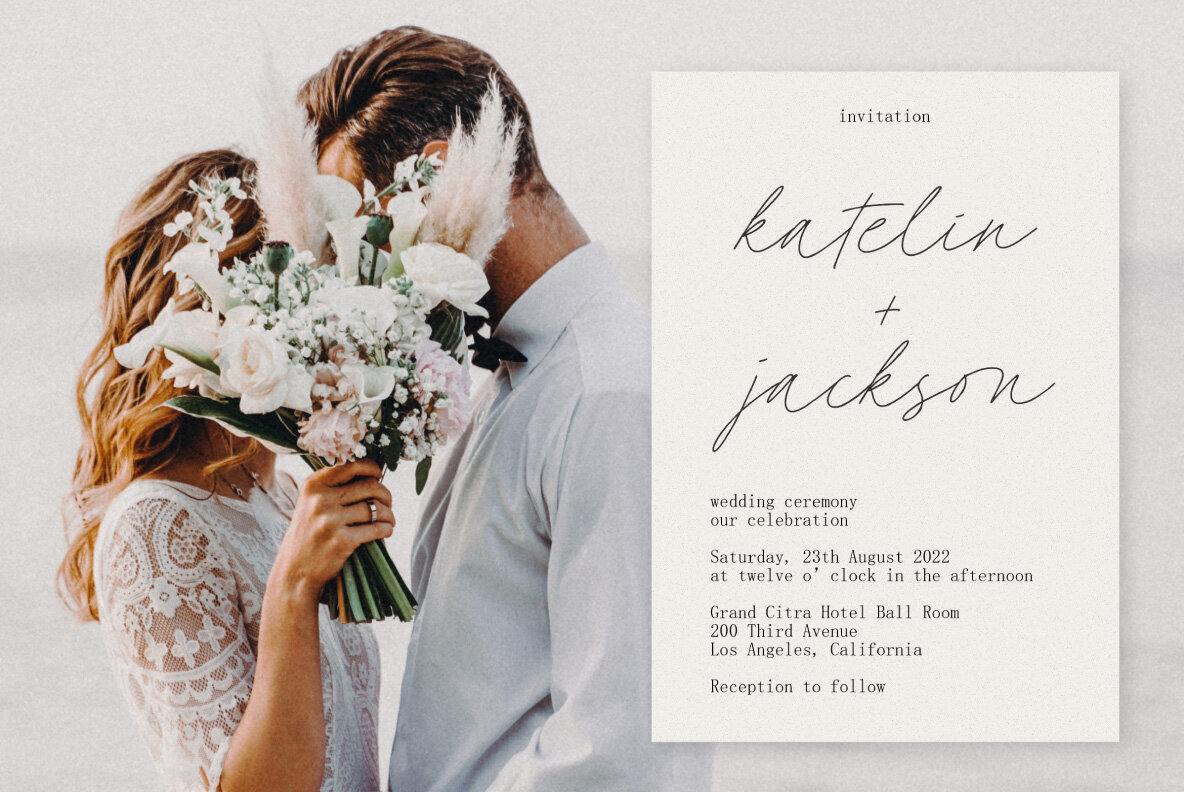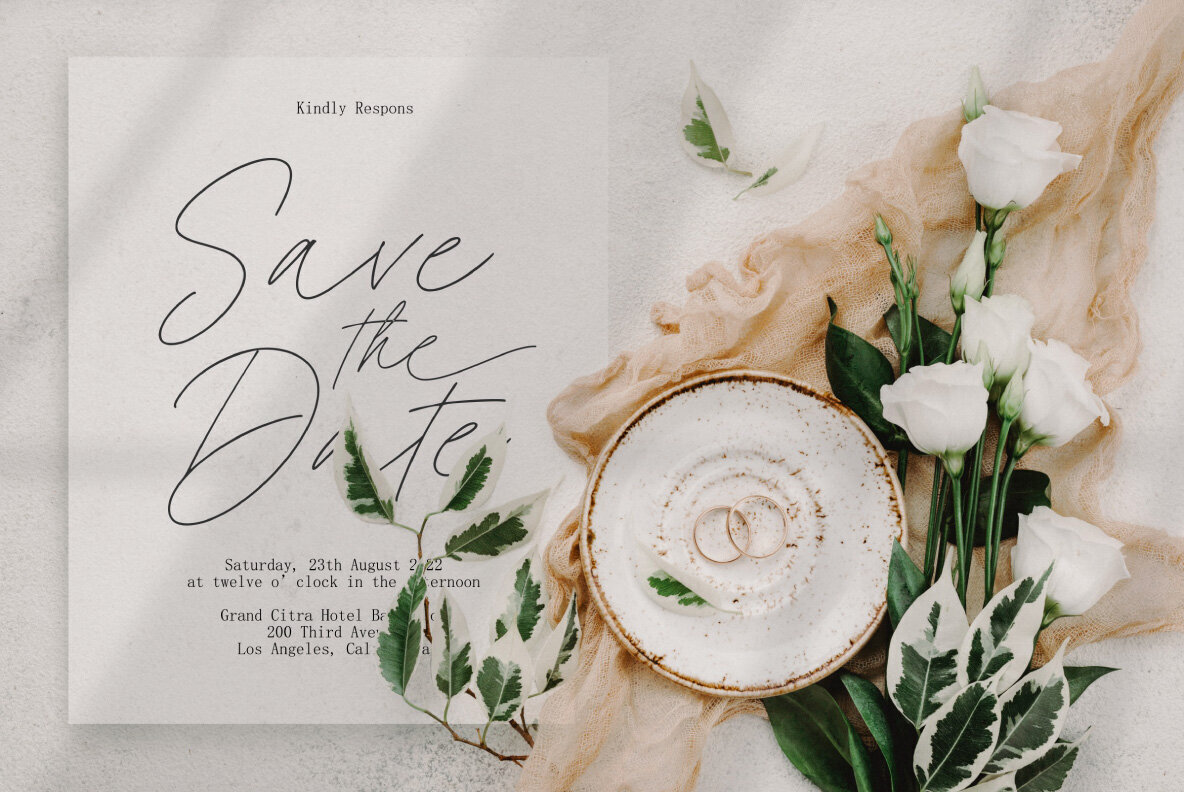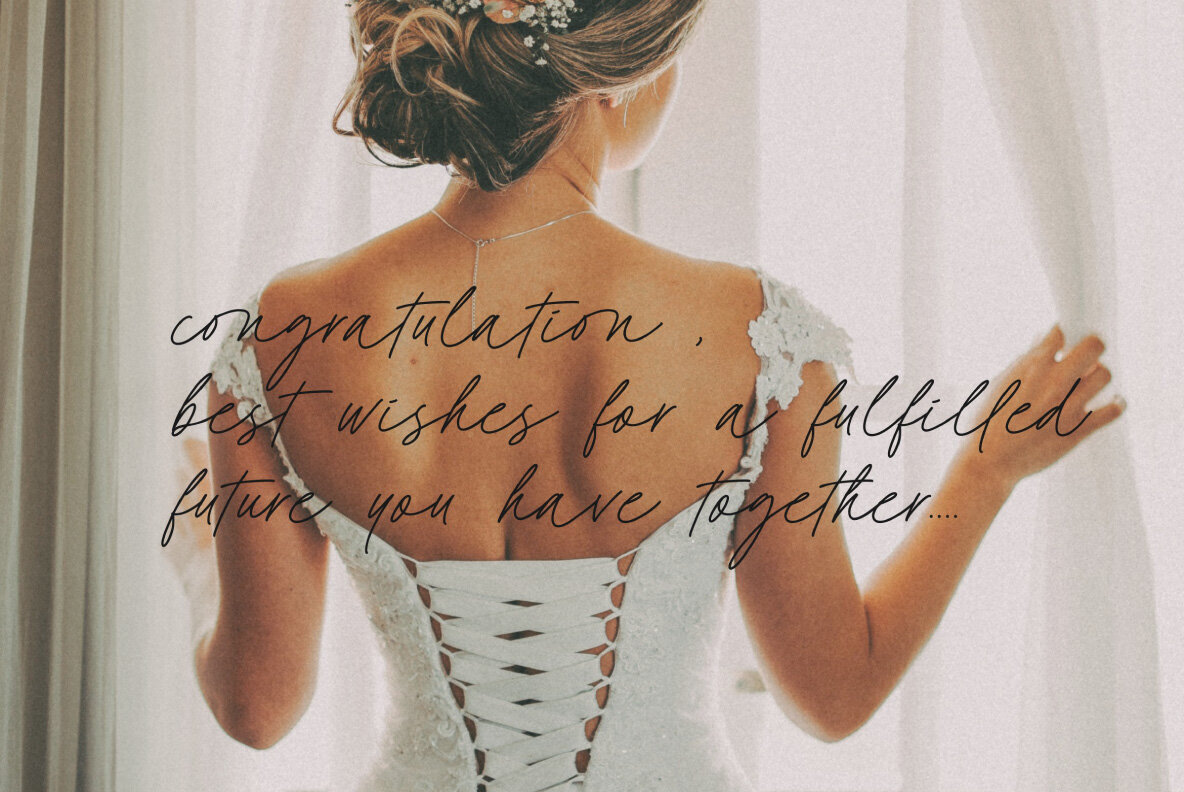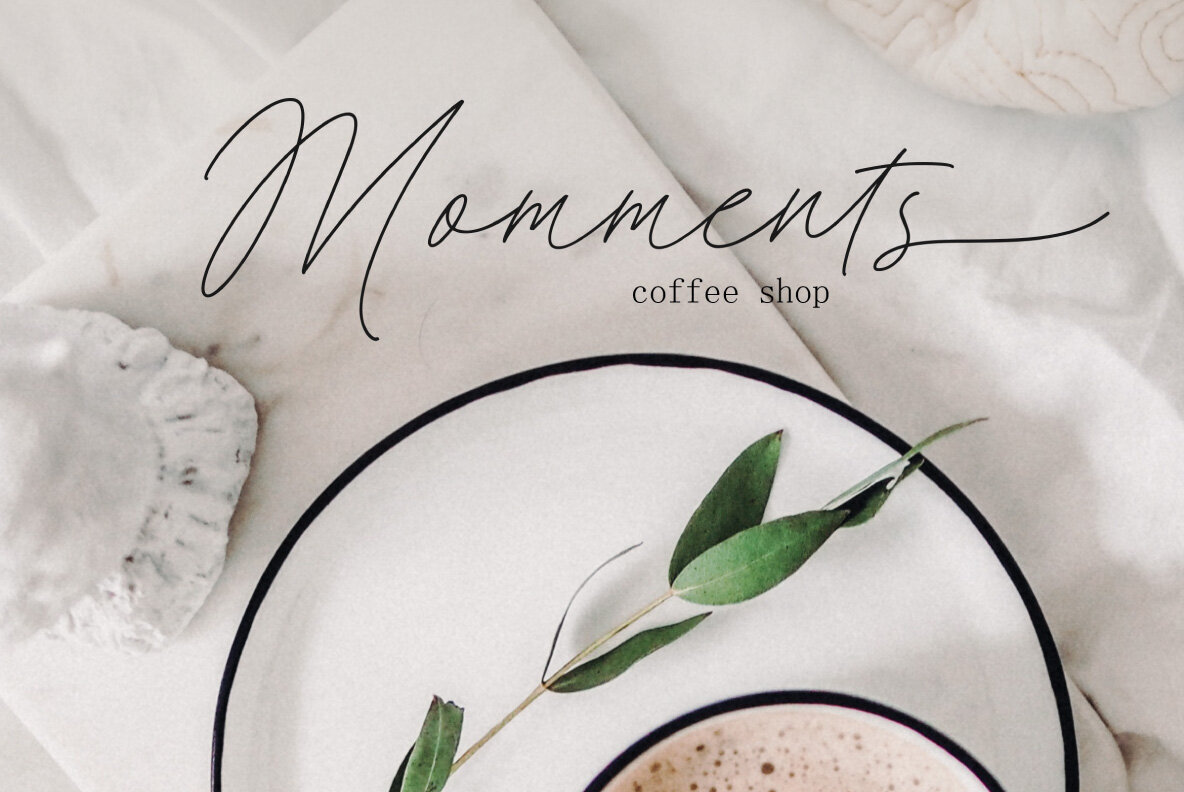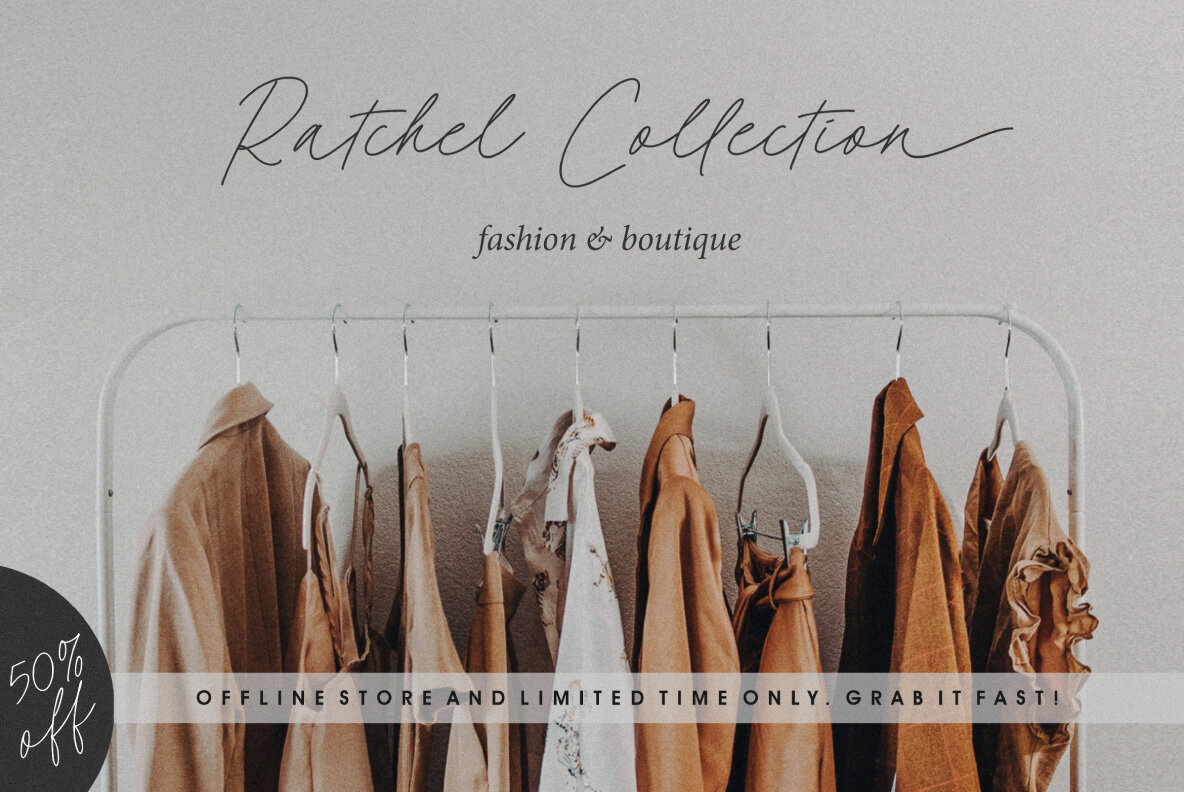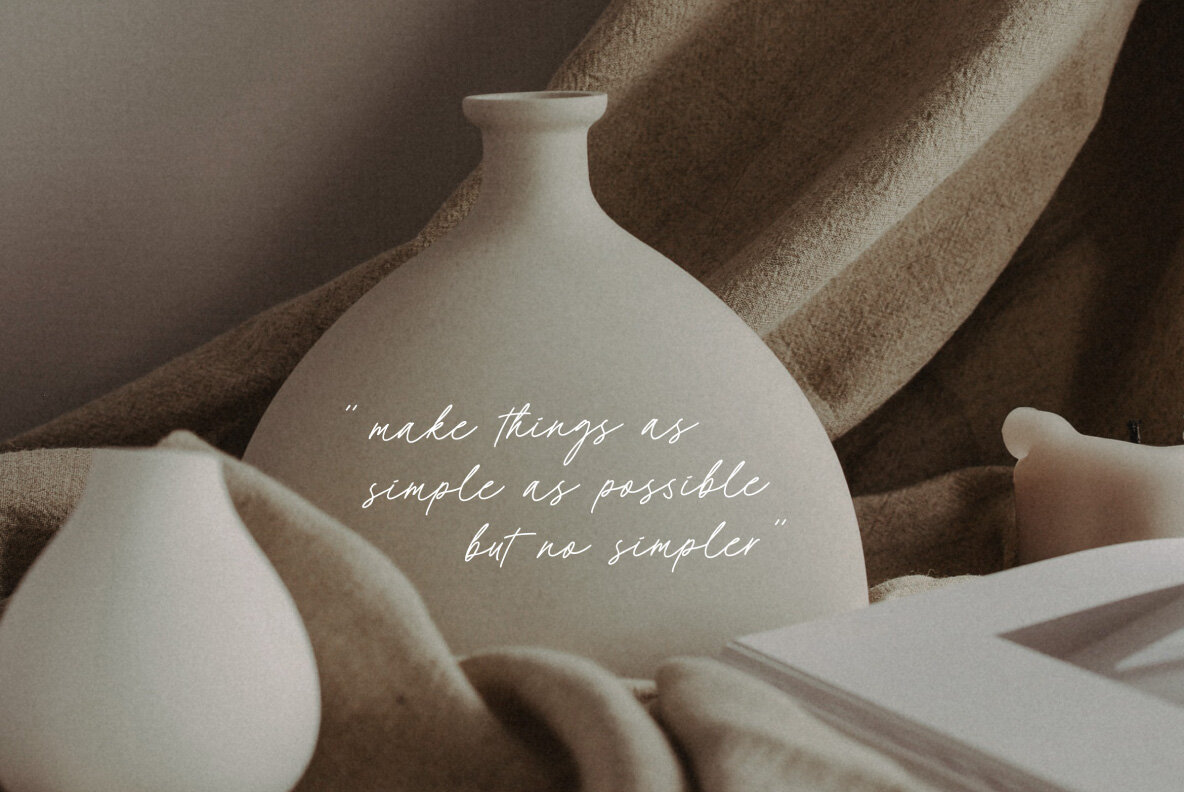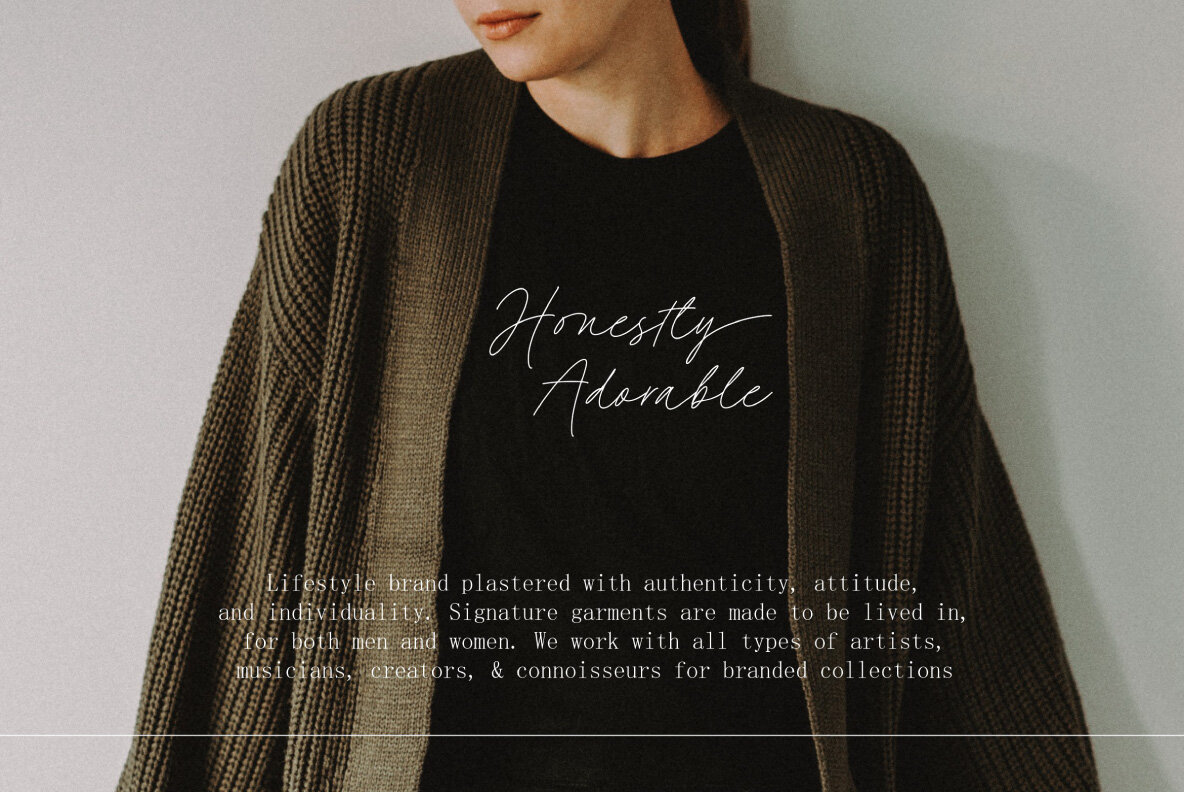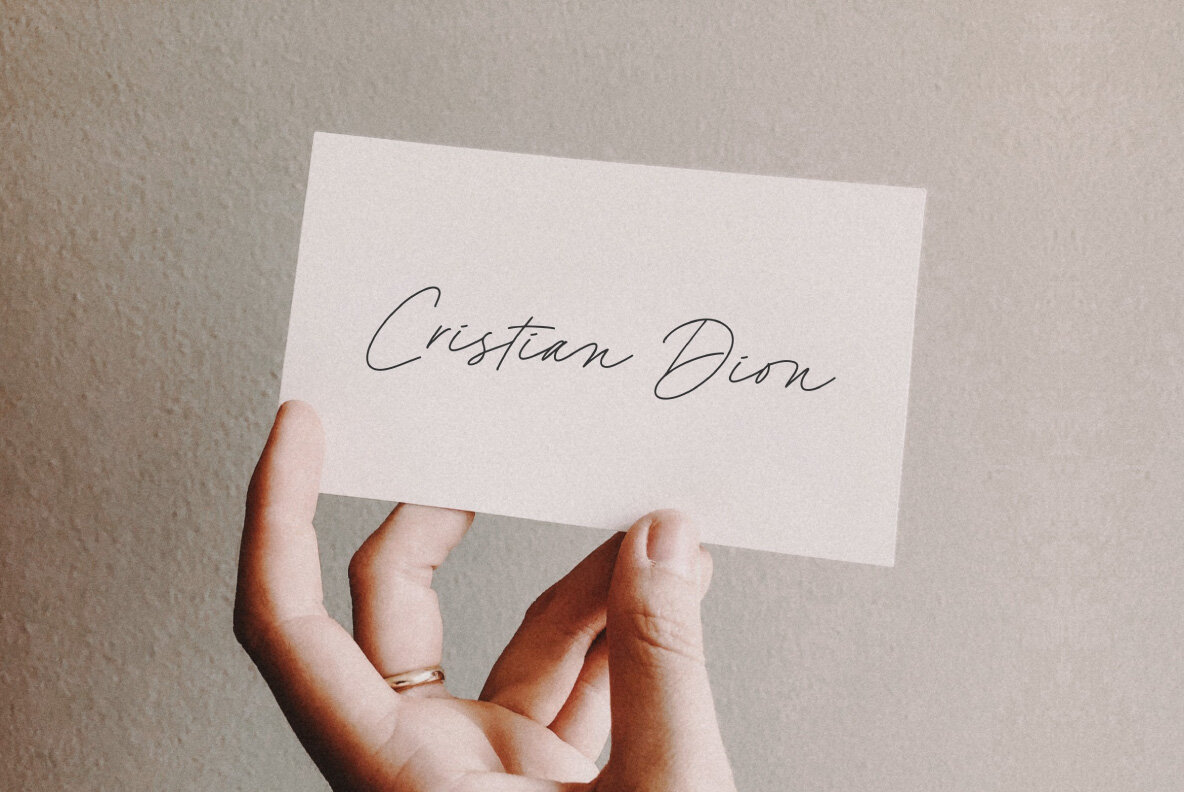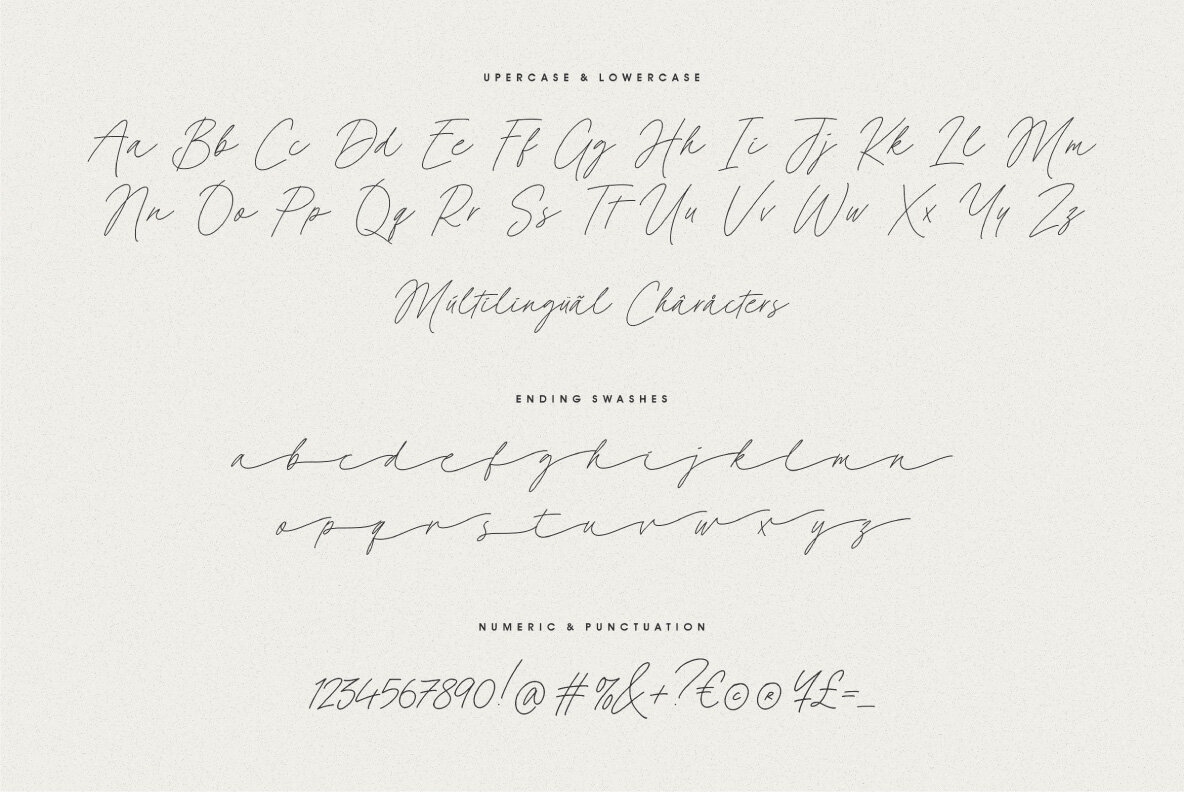
Cassandre Font
Cassandre Regular
Cassandre! is a hairline and modern signature handwritten font. Cassandre comes with ending swashes to add charming feel. Just type "-" at the end of the letters to access swashes. Or you can access it via alternates option.
Cassandre is perfect for many design needs such as merch, T-shirts, logo, titles, wedding, book covers, social media posts, websites, events, and many more.
- Ending Swashes
- Numeral & Punctuation.
- Ligature.
- Multilingual Support.